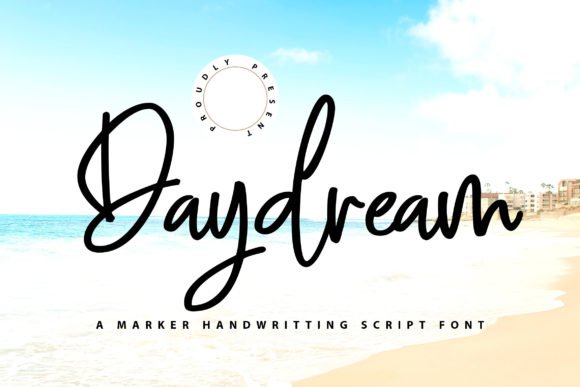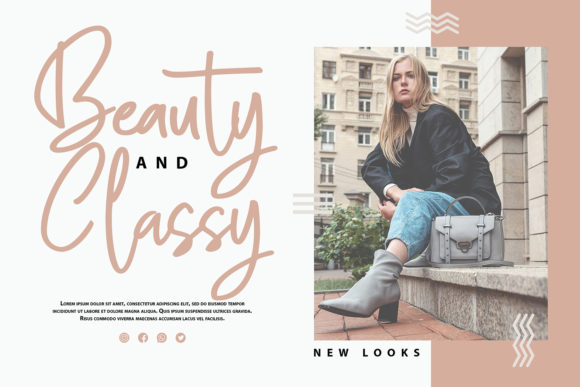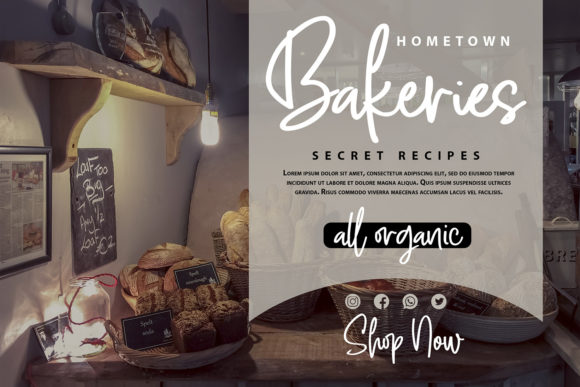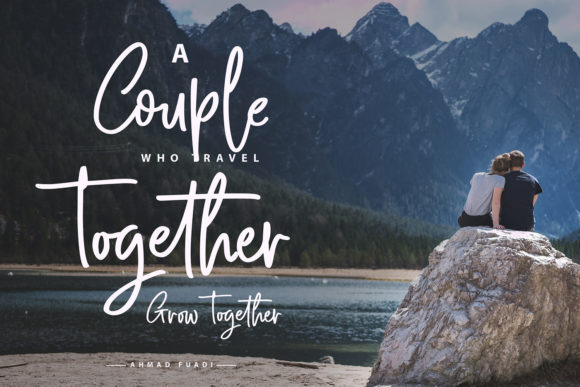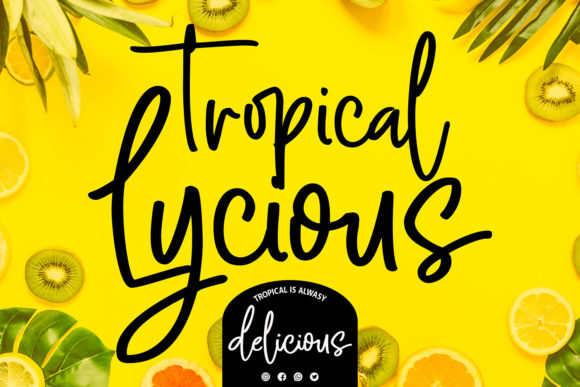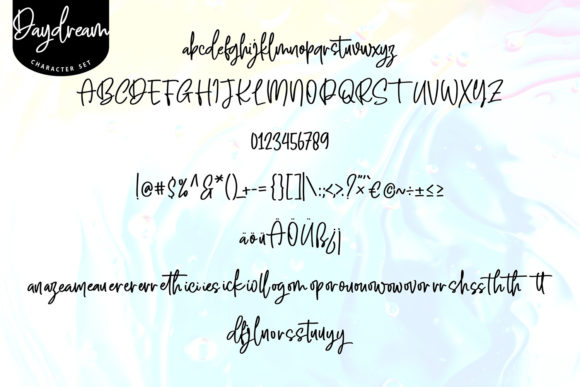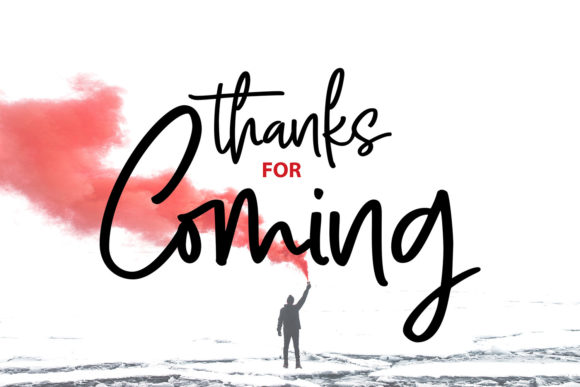
Have you ever found yourself sitting at your desk, staring blankly at a blank page, waiting for inspiration to strike? It’s a moment we’ve all experienced at some point or another. As creatives, we know that sometimes the best ideas come from letting our minds wander and exploring new possibilities. And that’s exactly what the Daydream Font is designed to evoke – a sense of freedom and imagination.
With its laid-back and cursive script style, the Daydream Font is the perfect companion for any creative project. Whether you’re working on a personal blog, a design portfolio, or a marketing campaign, this font has the potential to bring your vision to life in a unique and captivating way. And with its PUA encoding, you’ll have access to all the glyphs and swashes you need to add an extra touch of personality to your designs.
Key Features of Daydream Font
- Unique Characteristics: Features a unique, hand-drawn aesthetic with intricate details and subtle flair, perfect for creating eye-catching designs.
Daydream Font Review
At first glance, the Daydream Font seems like a charming addition to any design project. ✨ The whimsical and dreamy feel of the font is sure to capture attention and convey a sense of playfulness. The font’s unique, flowing lines and subtle flair at the end of letters create an elegant and eye-catching appearance.
However, upon closer inspection, some limitations become apparent. ⚠️ The font may not be the best choice for body text, as it can be quite busy and difficult to read at smaller font sizes. Additionally, the font’s dreamy quality may not be suitable for projects requiring a more formal or serious tone.
- ✨ Whimsical and dreamy feel
- ✨ Unique, flowing lines and subtle flair at the end of letters
- ⚠️ May not be suitable for body text
- ⚠️ May not be suitable for formal or serious projects
Overall, the Daydream Font is a great choice for projects that require a touch of whimsy and elegance. It’s perfect for titles, headings, and other design elements where you want to make a statement. However, it’s not a one-size-fits-all solution, and you should carefully consider the project’s tone and requirements before using this font.
The Daydream Font is perfect for creating dreamy, ethereal designs that evoke a sense of wonder and enchantment. Use it for:
- Children’s book illustrations and graphics
- Magazine and blog headers
- Social media graphics and ads
To get the most out of the Daydream Font, experiment with different font sizes, styles, and combinations. Use it in conjunction with other design elements like illustrations, graphics, and textures to create a unique and captivating look. Don’t be afraid to push the boundaries and try new things – the Daydream Font is all about embracing your creativity and imagination!